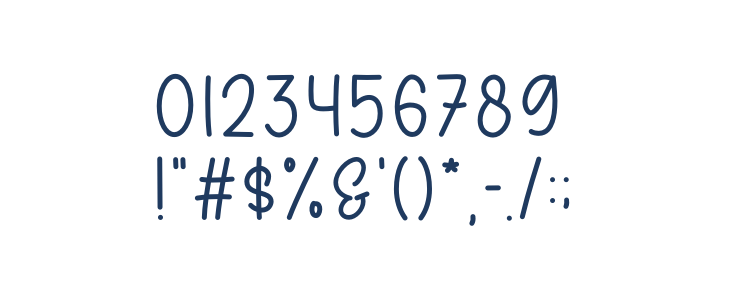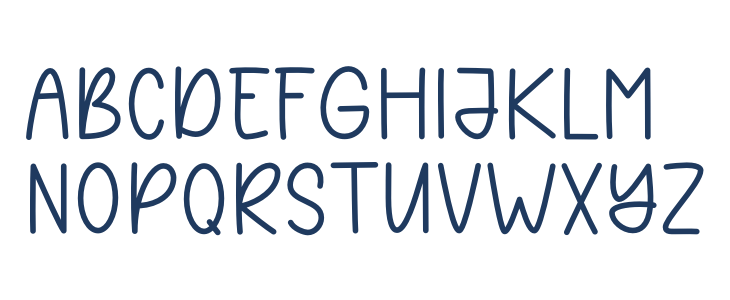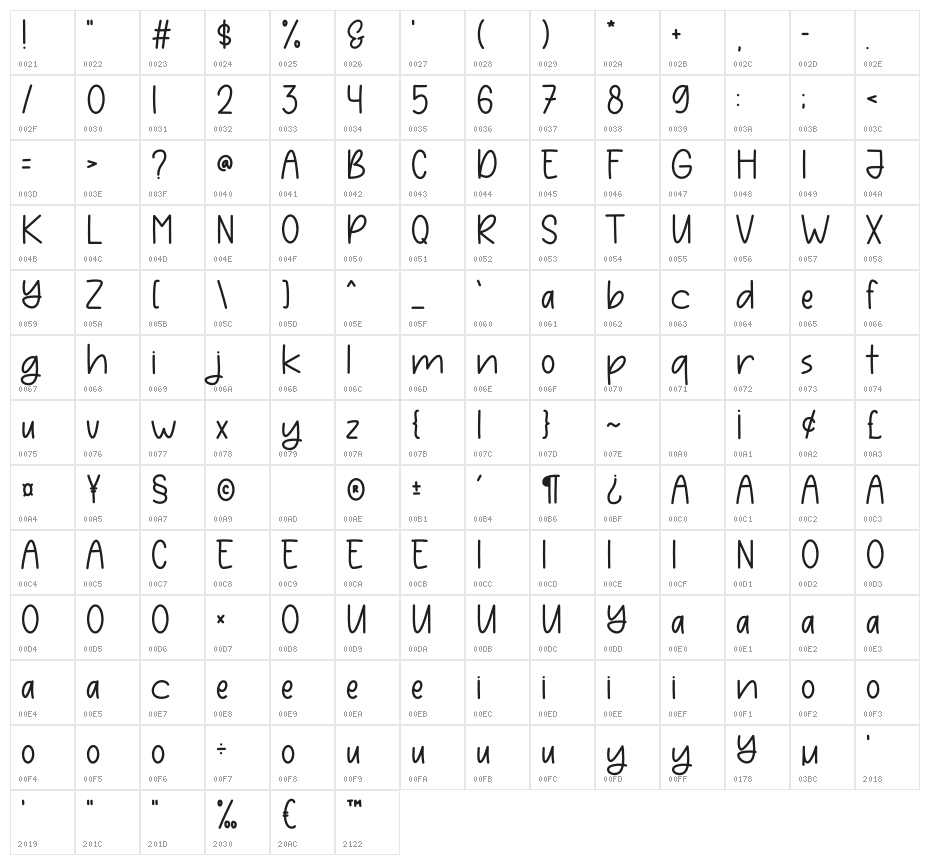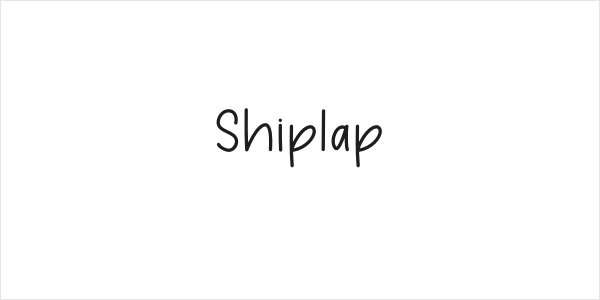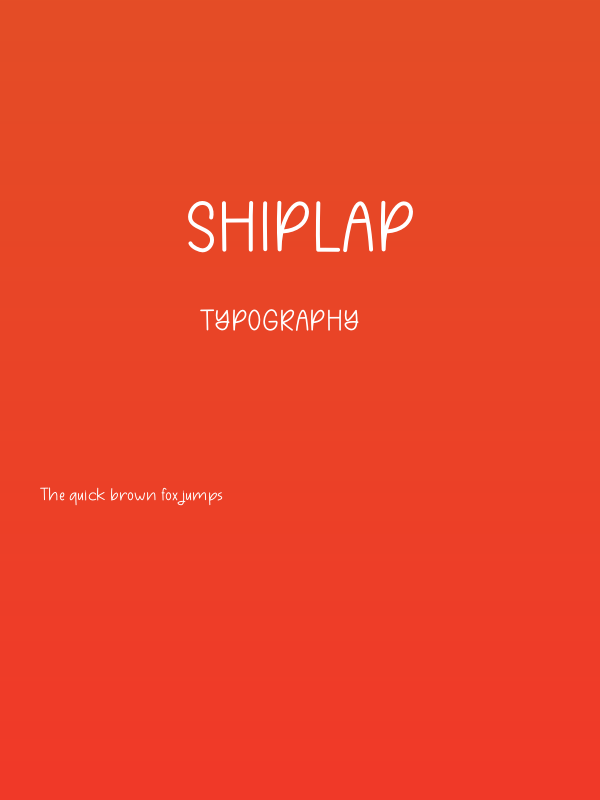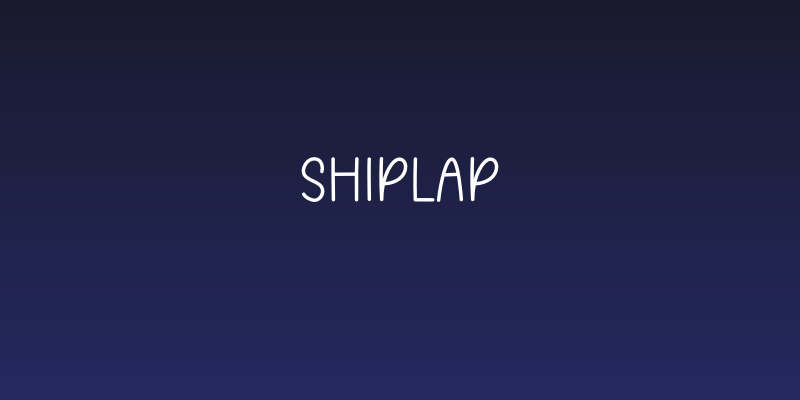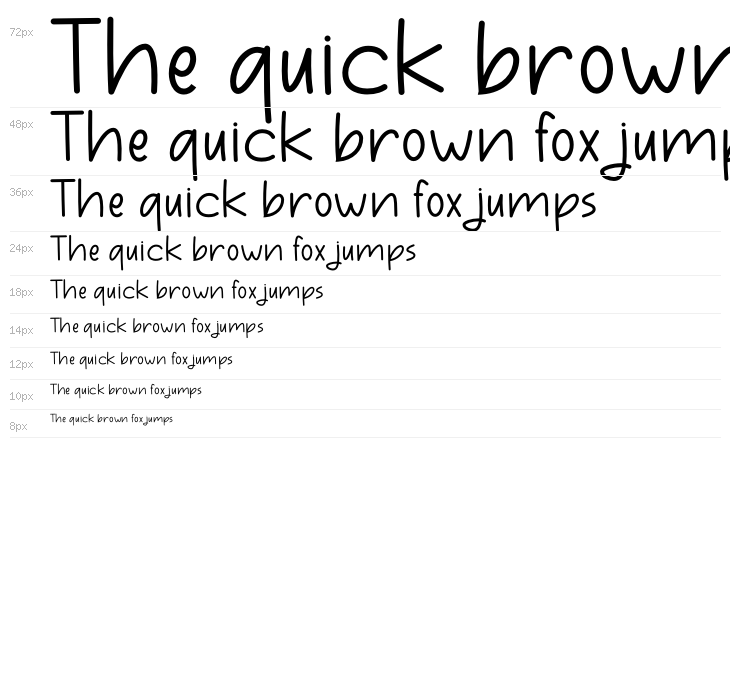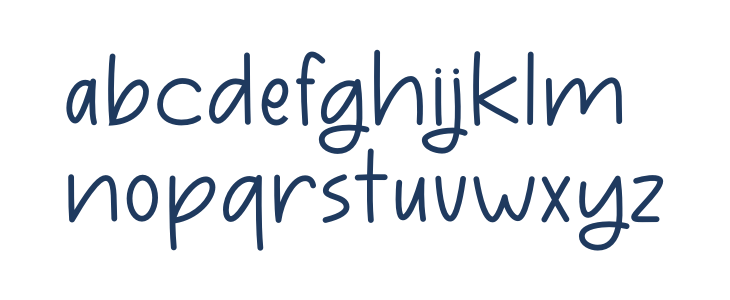
Shiplap Font
Shiplap Description
A playful, handwritten sans-serif font with rounded terminals and consistent stroke width, featuring tall ascenders and a casual, friendly appearance.
| Overall Style | Playful, Casual, Friendly |
| Use Case | Headlines, Short text, Invitations, Posters |
| Proposed Projects | Greeting cards, children's books, posters, informal branding, social media graphics. |